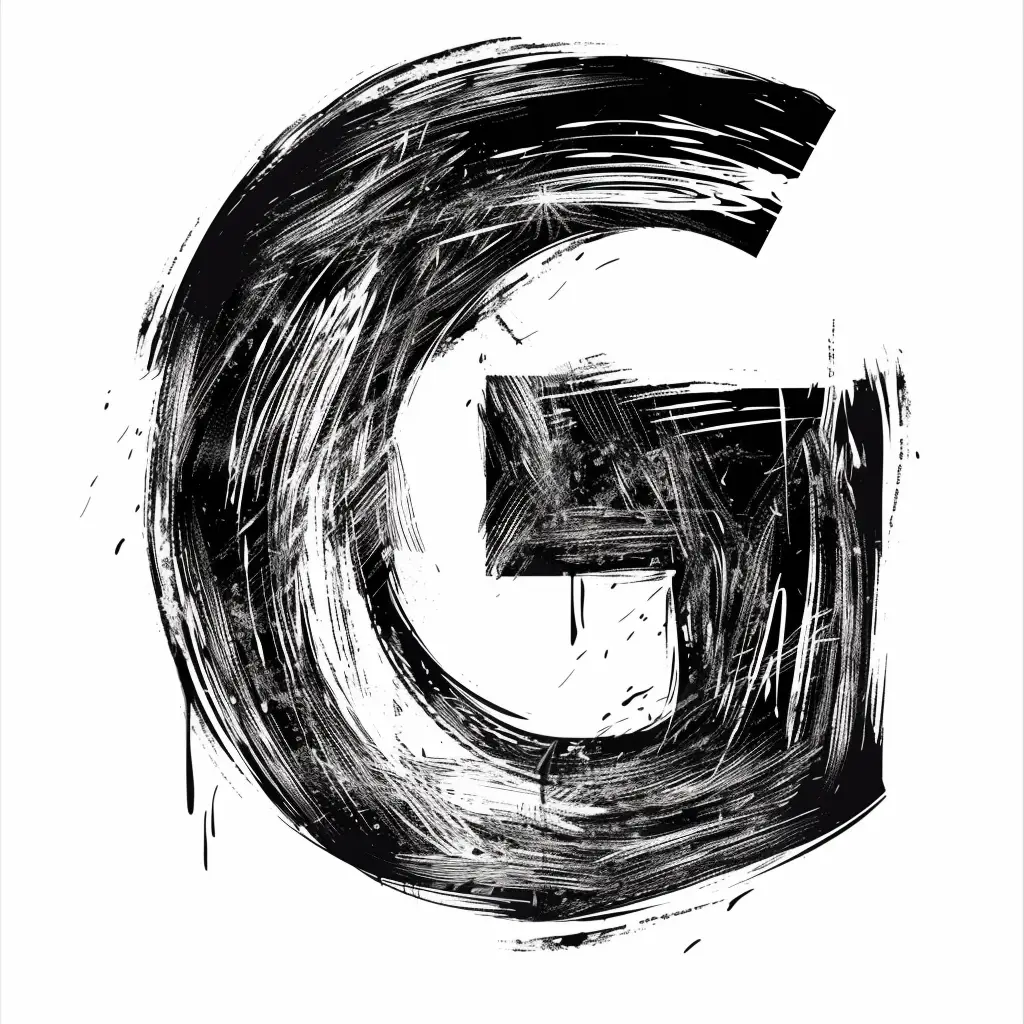
The image features a stylized, hand-drawn letter "G" rendered in bold black brushstrokes against a white background. The design has a textured, grungy aesthetic with visible brush marks, drips, and layered strokes, creating a dynamic, artistic feel. The high-contrast black-and-white color scheme emphasizes the rough, expressive style of the typography.